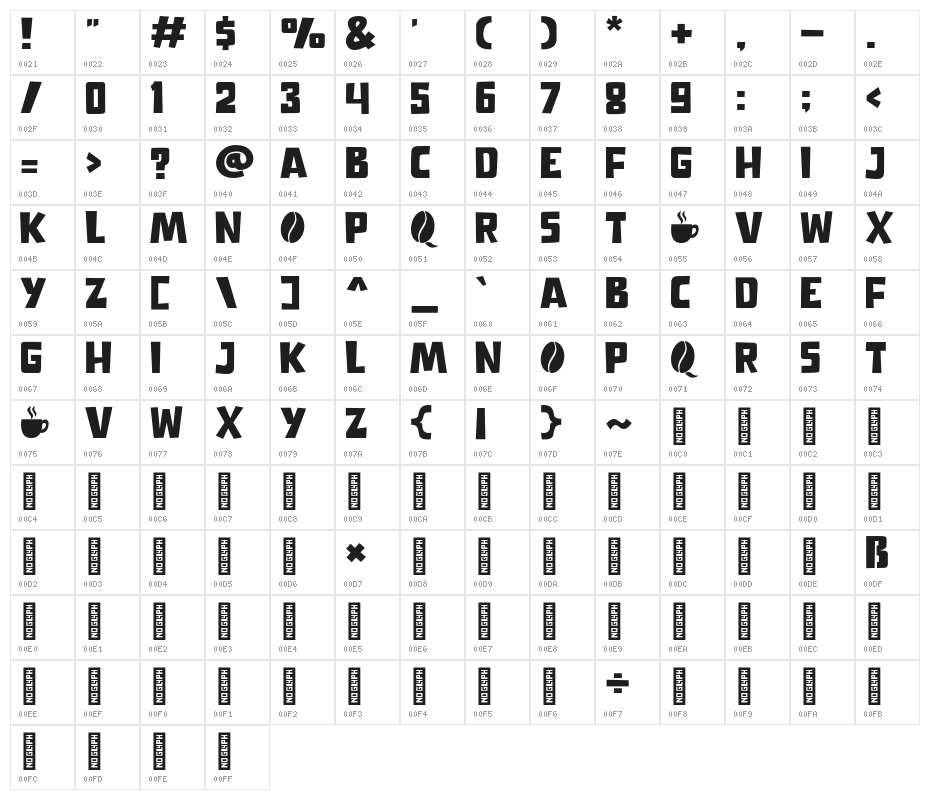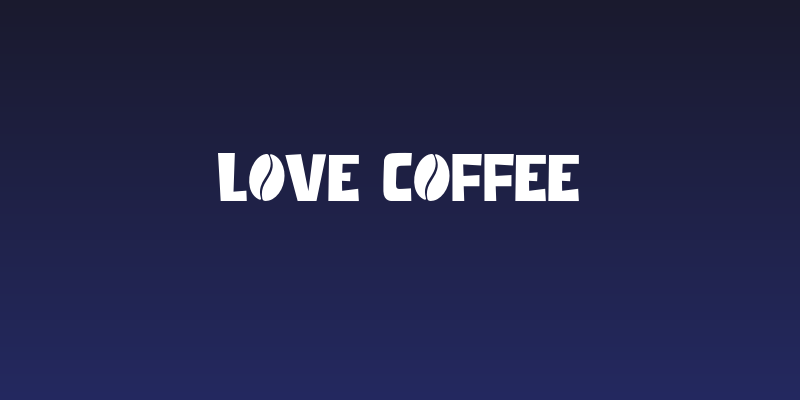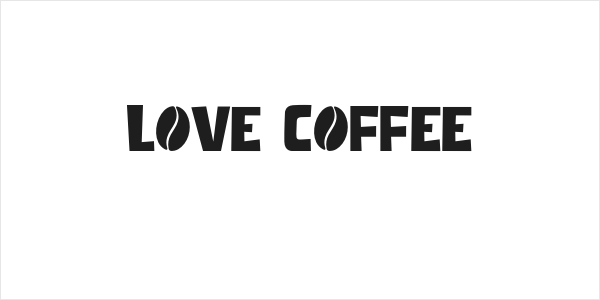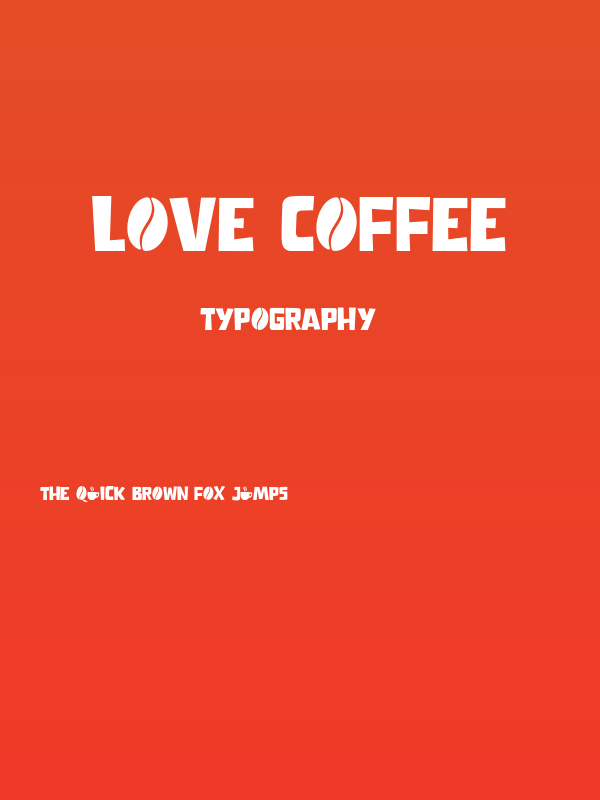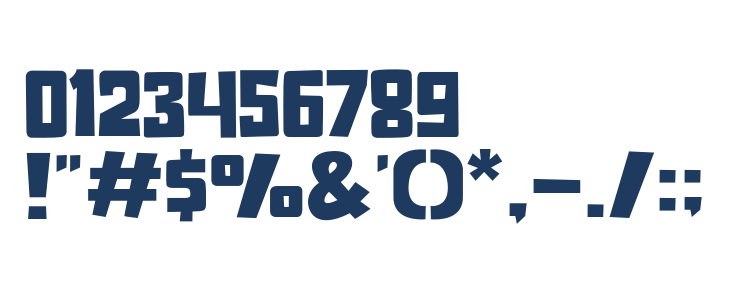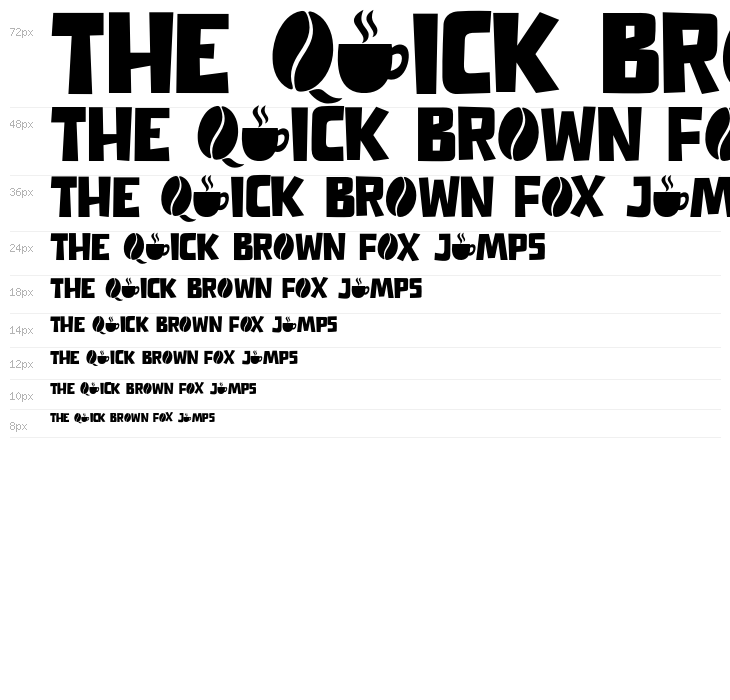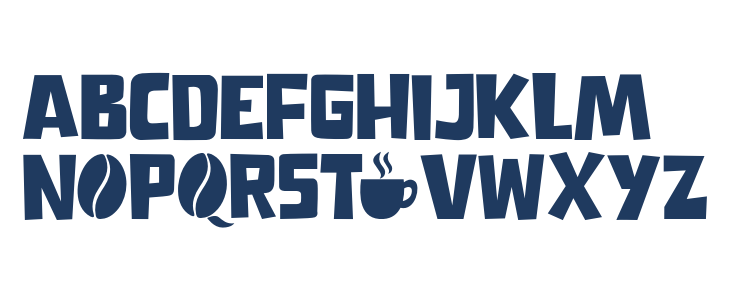
Love Coffee Font
Love Coffee Description
This font features a bold and playful design, incorporating elements that evoke a sense of fun and creativity. The letters are characterized by their thick, blocky shapes, with some characters integrating unique coffee-themed symbols, such as a coffee cup and a coffee bean, adding a whimsical touch. The overall appearance is both modern and decorative, making it stand out with its distinctive style. The font maintains a consistent weight throughout, ensuring readability while still offering a unique visual appeal. The spacing between characters is normal, allowing for clear legibility. This font is ideal for projects that require a touch of personality and charm, such as cafe branding, playful posters, or any design that seeks to convey warmth and friendliness.
| Use Case | Logos, Headlines, Branding |
| Proposed Projects | Cafe branding, playful posters, creative packaging, and any design needing a warm, friendly touch. |